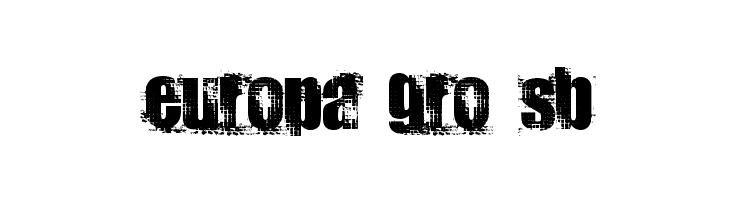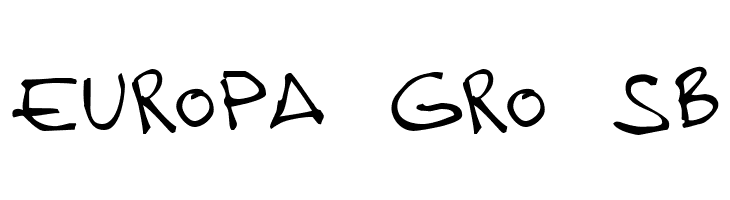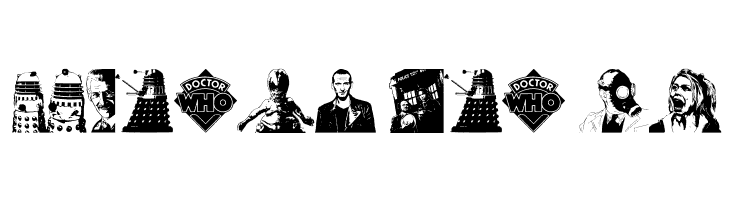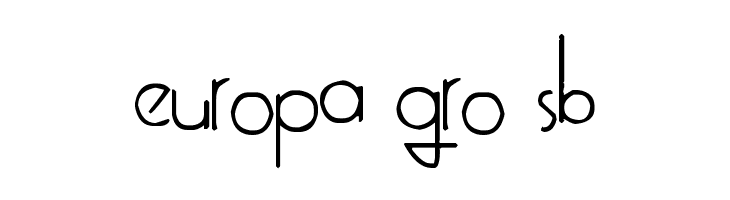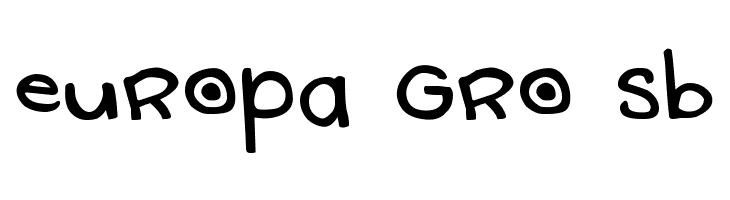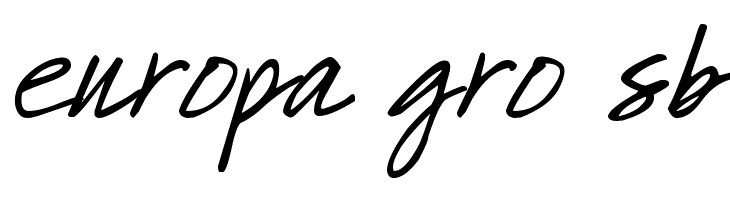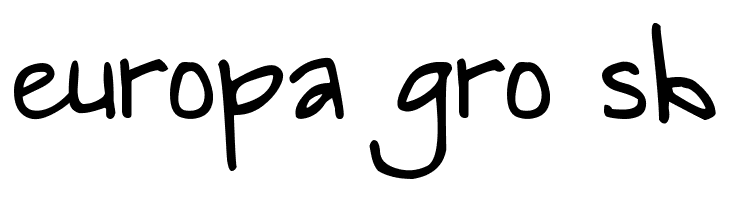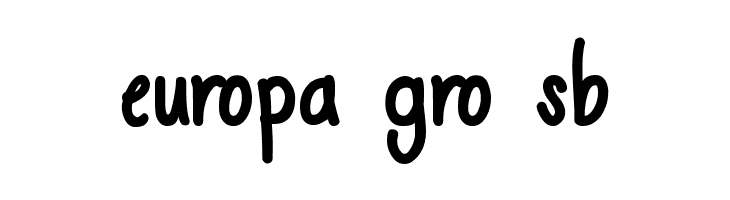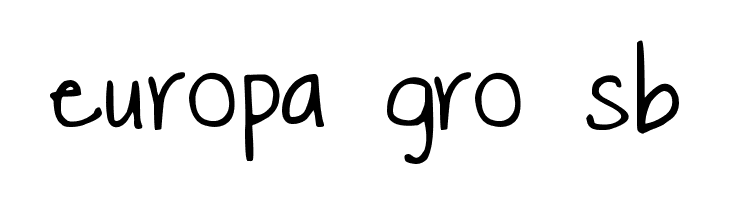
• DJB This is Me 2
• DJB Tia
A playful, informal handwritten font with smooth, rounded strokes.
• DJB Uncertain Tense
A playful, handwritten font with bold, rounded strokes and a casual style.
• DJB What a Babe
A playful, handwritten font with fluid, dynamic strokes and a casual style.
• DJB Woke Up Late
A playful, casual handwritten font with a friendly and approachable style.
• Do I like Stripes?
A playful, modern font with elongated, curved characters and minimal contrast.
• Docporn
A playful, informal handwritten font with dynamic strokes and quirky charm.
• Docteur Atomic
A bold, distressed font with a grunge texture and rugged appearance.
• Doctor Who 2006
• DodgesCaps
Bold, uppercase letters with shadow effects in circular shapes, offering a vintage and decorative style.